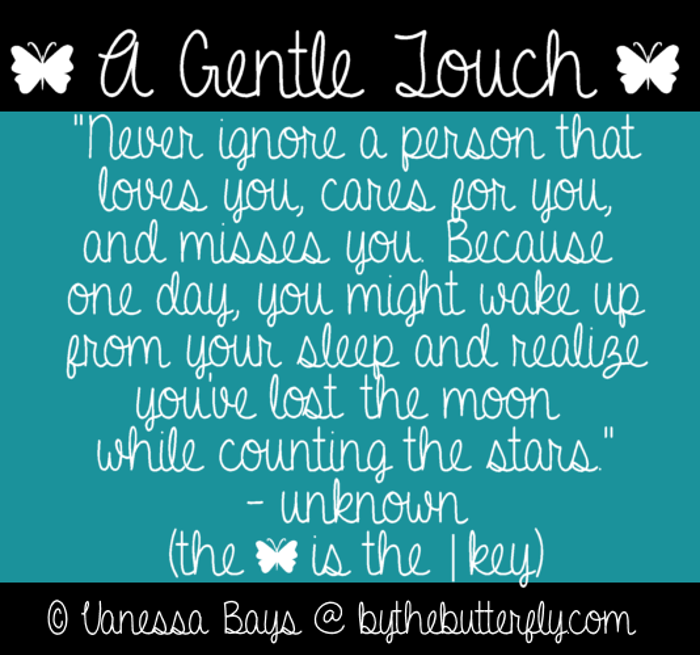
A Gentle Touch Font
About A Gentle Touch Font
More info from ByTheButterfly
--- I have added a couple of kerning pairs (which will make a couple of the letters flow easier.. you will not be able to see them when "previewed" here. However, once you download the font and use it in a program that supports kerning, they will show up! ---
Gorgeous!
Lovely! It's so clear and easy to read, but not boringly (if that wasn't a word before, now it is!) plain. Another perfect font for my scrapbook journaling:)
so beautiful 😄 Thank you 😄
very nice one Vanessa !
I added a couple of kerning pairs this morning.
Yes, yes, yes!
@Spacini YAY!!!! Thank you! I finally did my FIRST script font, although pain it may be.. lol. I am in the middle of working on a fancy script 😄 Learning new things everyday!
I meant *Plain it may be* for my first go... my keys are so sticky!!
This is an awsome font I luv it!! xD
Very cute! Thanks!
Wonderful, the look of handwriting, yet very neat.
To die for its fantabulously amazing 😉
Love this! Its beautiful :))
love it!
My boyfriend committed suicide last night and this font is just perfect for a tattoo I want to get for him.
OMG i love this font!! definately my fave font!!
HEy man I like so much this font 😃
so cute! 2016 ❤ 😃
Very nice 😄 Free-flowing and easy to read--- you don't see that alot with scripts like this.